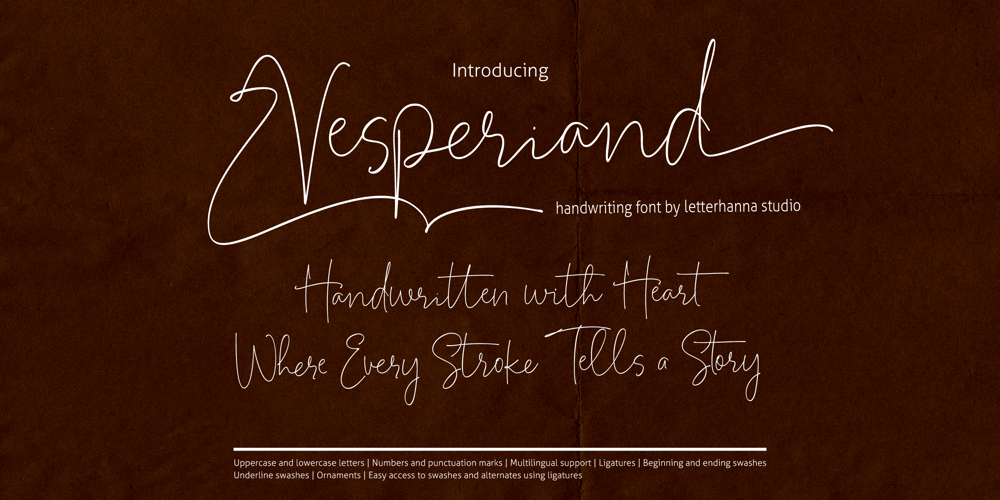
Vesperiand Font Family was designed by Rinaldo Hasibuan and published by Letterhanna Studio. Vesperiand contains 1 styles and family package options. Introducing Vesperiand, a handwriting script font crafted for those who seek elegance with a personal touch. Designed with a rich collection of stylistic alternates, graceful swashes, and fluid ligatures, Vesperiand brings a natural yet sophisticated feel to your typography. Whether you’re working on branding, invitations, or creative projects, this font effortlessly adapts, adding charm and uniqueness to every word.